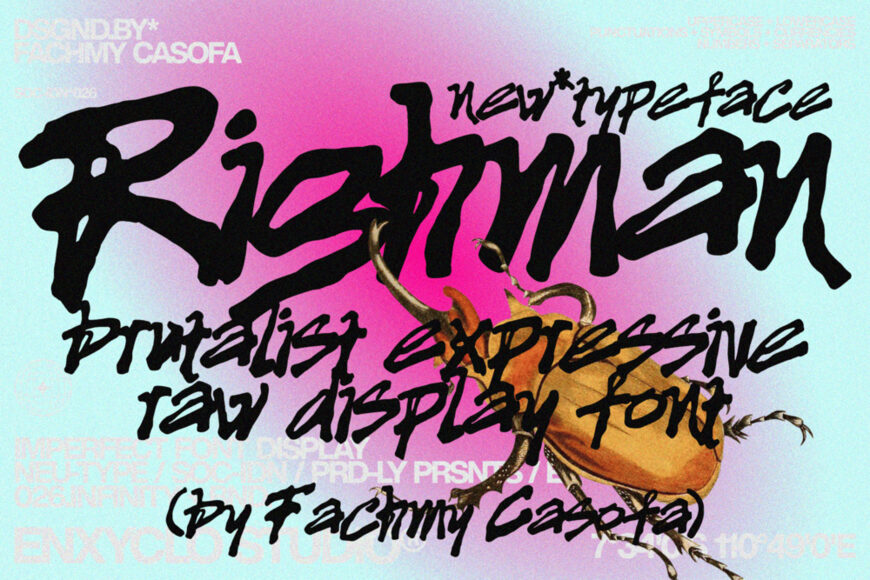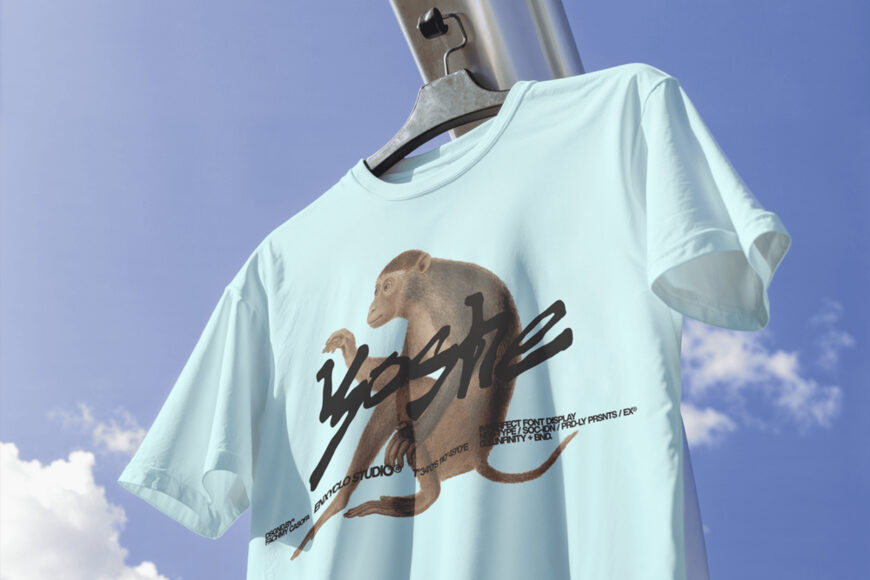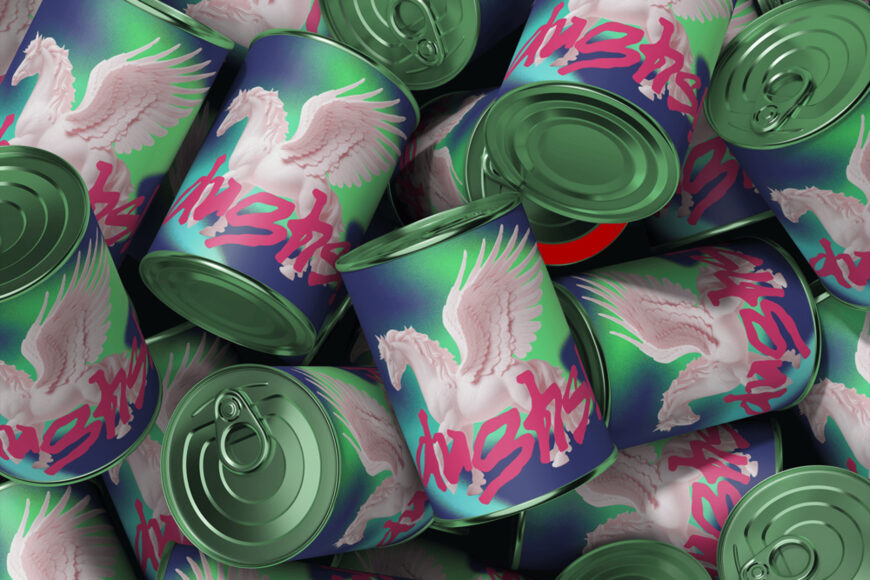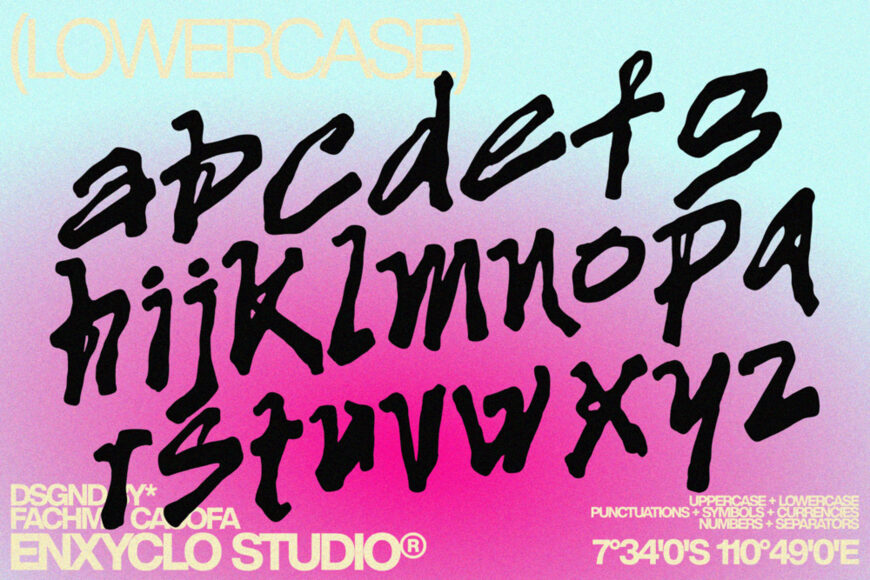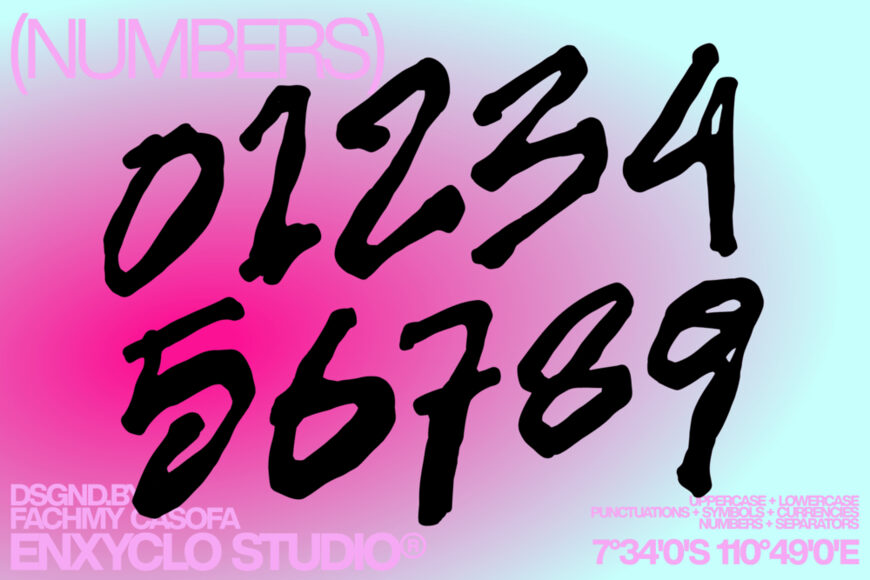
RIGHMAN is a raw imperfect handdrawn font created for modern brands that want to break away from polished, predictable typography. Inspired by urban culture, graffiti, grunge, and expressive brush lettering, it brings a gritty handmade energy to every word. Its rough edges, spontaneous strokes, and imperfect details create a bold visual character that feels authentic, rebellious, and unapologetically creative.